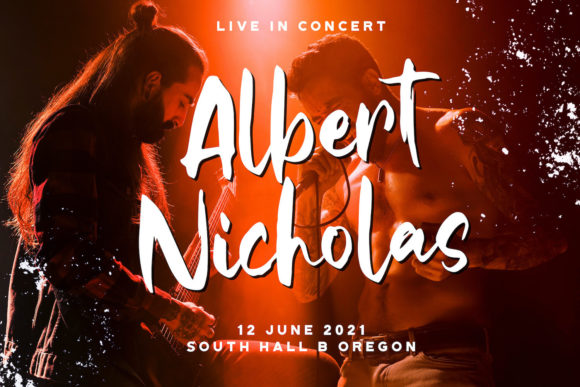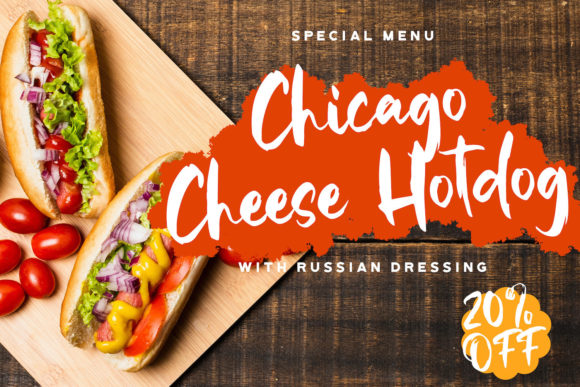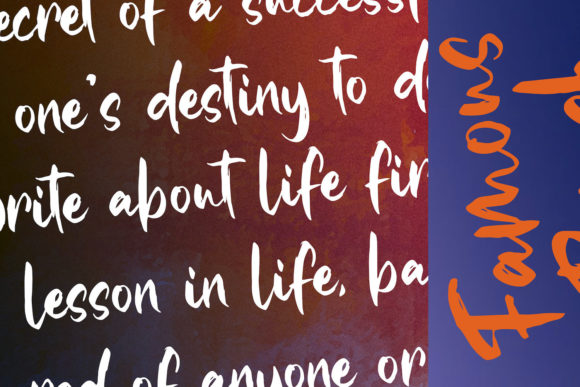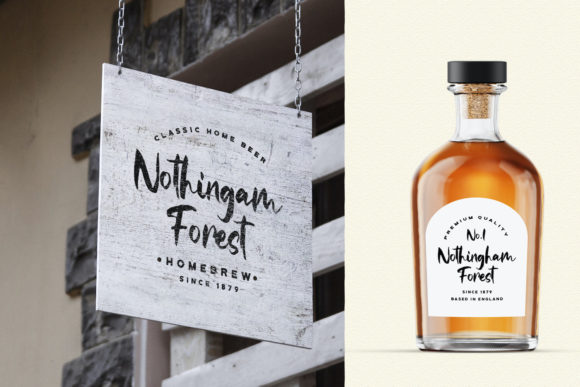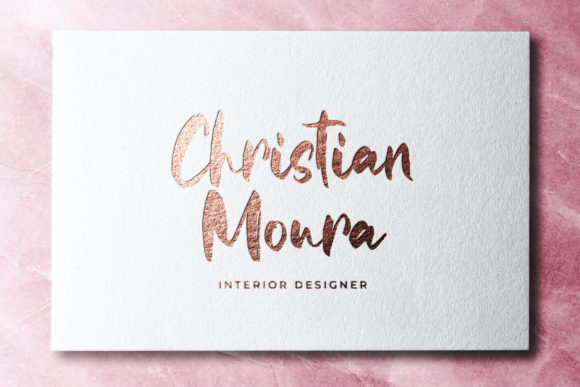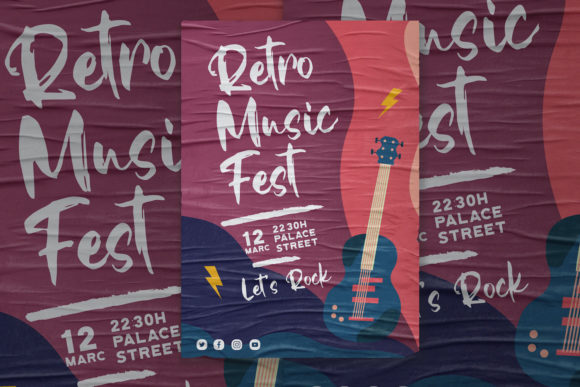
Introduction to Famous Brush Font
Remember that moment when you finally nail down the perfect design concept for a project, and it all comes together in a beautiful, cohesive way? The right font can make all the difference, elevating your creative project from bland to grand. That’s exactly what the Famous Brush Font does – it brings your designs to life with its cool, trendy, and chic handwritten style.
As a designer, you’re always on the lookout for high-quality design resources that can help you take your projects to the next level. The Famous Brush Font fits the bill perfectly, offering a versatile and casual look that’s perfect for a wide range of designs. Whether you’re working on a digital project or creating a design with a transparent background, this font is sure to impress.
Key Features of Famous Brush Font
- Unique Hand-Drawn Style: Famous Brush Font features a distinctive hand-drawn design, perfect for creative projects requiring a personal touch.
- Customizable: Famous Brush Font offers a range of customization options, including color and size adjustments, to suit various design requirements.
- Perfect for Digital Art and Design: With its unique brush-style design, Famous Brush Font is ideal for digital art, creative projects, and design elements requiring a high level of visual appeal.
Honest Review: Famous Brush Font
- High-quality design: The Famous Brush Font is meticulously crafted, offering a professional look that’s perfect for creative projects.
- Transparency: The font has a transparent background, making it easy to layer with other design elements.
- Style versatility: The brush font is incredibly versatile, suitable for a wide range of design applications, from logos to typography.
- Font size limitations: The font may not be suitable for extremely large or small text sizes.
- Color limitations: The font’s transparent background may not work well with certain color combinations.
Overall, I’m thoroughly impressed with the Famous Brush Font. Its high quality, transparency, and style versatility make it an excellent addition to any designer’s toolkit. While it may have some limitations, I believe the benefits far outweigh the drawbacks.
Famous Brush Font
To get the most out of Famous Brush Font, try the following:
1. Use a transparent background to create a seamless design.
2. Experiment with different font sizes and colors to achieve a high-quality look.
3. Use Famous Brush Font in a creative project to add a personal touch.
Famous Brush Font is perfect for:
2. Designing a logo or branding material.
3. Adding a creative touch to a presentation or document.
Alternatives to Famous Brush Font
Alex Brush Font is a beautiful, elegant script font perfect for creative projects that require a touch of sophistication. It features a transparent background, making it ideal for use on light-colored backgrounds. This font is ideal for wedding invitations, branding, and other high-end design projects.
Compared to Famous Brush Font, Alex Brush Font has a more refined and polished look. It’s better suited for formal designs and requires a bit more skill to use effectively.
What makes the Famous Brush Font a high-quality design resource?
The Famous Brush Font is a high-quality design resource due to its unique and creative style, which is perfect for adding a personal touch to your design projects. Its high-resolution design ensures that it looks great in both digital and print formats, making it a valuable asset for designers working on various creative projects.